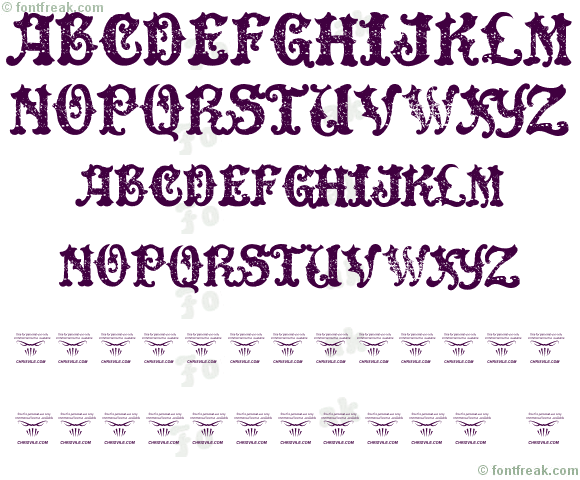
DinglEHuckleberrY-Italic
About DinglEHuckleberrY-Italic
DinglEHuckleberrY-Italic is a distinctive display font created by Chris Vile, known for its unique flair and artistic touch. This font belongs to the decorative category, characterized by its playful and whimsical nature. The strokes exhibit a moderate weight with an elegant contrast, giving it a bold yet refined appearance. The italic style adds a dynamic feel, enhancing its visual appeal with gracefully slanted letters that flow seamlessly together. The spacing is thoughtfully designed, allowing for readability while ensuring a cohesive look.
This font is particularly well-suited for creative projects that require a touch of personality. It shines in wedding invitations, where its charm can elevate the romantic ambiance. Movie posters benefit from its eye-catching style, making title text stand out against vibrant imagery. Additionally, restaurant menus can leverage the playful nature of DinglEHuckleberrY-Italic to create an inviting atmosphere, drawing customers in with its unique aesthetic. Graphic designers and content creators will find this font versatile for branding materials, social media graphics, and promotional content, allowing them to infuse creativity into their work.
What truly sets DinglEHuckleberrY-Italic apart is its ability to blend playfulness with elegance, making it a perfect choice for projects that aim to capture attention and evoke emotion. Whether you're designing for an event or crafting a brand identity, this font promises to deliver a unique touch. Explore the possibilities with a DinglEHuckleberrY-Italic font free download and let your creativity flourish.